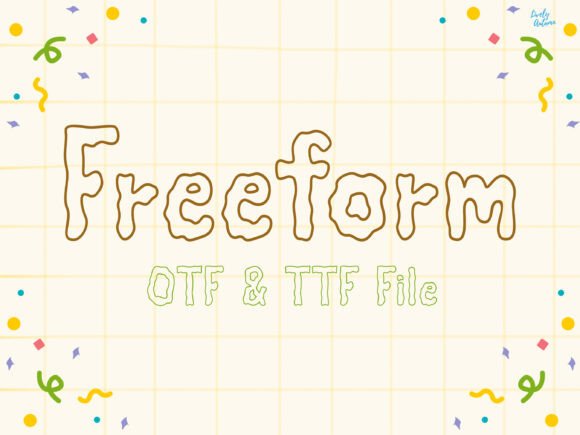
Introducing Freeform Font: Unleash Your Creativity with a Playful Hand-Drawn Outline Font
Are you tired of using the same old fonts for your personal and professional projects? Do you want to add a touch of playfulness and whimsy to your designs? Look no further than the Freeform Font, a delightful hand-drawn outline font that is perfect for a wide range of applications. Inspired by loose, carefree doodles, Freeform is a versatile and fun font that can elevate your creative projects to the next level.
What is Freeform Font?
Freeform Font is a unique and charming font that is characterized by its hand-drawn, outline style. With its irregular shapes and carefree lines, Freeform exudes a sense of playfulness and spontaneity, making it perfect for designers who want to add a personal touch to their work. Whether you’re creating invitations, posters, social media graphics, journals, or greeting cards, Freeform Font is an excellent choice.
Key Features of Freeform Font
- Hand-drawn outline style: Freeform Font boasts a distinctive hand-drawn outline style that gives it a personal and playful feel.
- Playful and whimsical: The font’s irregular shapes and carefree lines evoke a sense of playfulness and whimsy, making it perfect for creative projects.
- Versatile: Freeform Font can be used for a wide range of applications, from invitations and posters to social media graphics, journals, and greeting cards.
- Easy to read: Despite its playful style, Freeform Font is easy to read, making it suitable for both headings and body text.
Uses of Freeform Font
Freeform Font is a versatile font that can be used for a wide range of projects. Here are some ideas to get you started:
- Invitations: Use Freeform Font to create playful and eye-catching invitations for parties, weddings, and other special events.
- Posters: Create bold and colorful posters for movies, concerts, or art exhibitions using Freeform Font.
- Social media graphics: Add a touch of personality to your social media graphics, such as Facebook posts, Instagram stories, and Twitter headers, with Freeform Font.
- Journals and planners: Use Freeform Font to create fun and colorful journal and planner pages that will inspire creativity and productivity.
- Greeting cards: Create heartfelt and playful greeting cards for birthdays, holidays, and other special occasions using Freeform Font.
Benefits of Using Freeform Font
Using Freeform Font can bring a range of benefits to your design projects. Here are some of the advantages of using this playful hand-drawn outline font:
- Adds personality: Freeform Font adds a touch of personality and whimsy to your designs, setting them apart from more traditional fonts.
- Creates a playful tone: The font’s playful style helps to create a lighthearted and carefree tone that is perfect for creative projects.
- Versatile: The font’s versatility means that it can be used for a wide range of applications, from digital projects to print materials.
Tips for Using Freeform Font
Here are some tips for using Freeform Font effectively in your design projects:
- Use it for headings: Freeform Font is perfect for headings and titles, where its playful style can really shine.
- Pair it with other fonts: Experiment with pairing Freeform Font with other fonts to create interesting and dynamic typography.
- Experiment with colors: Don’t be afraid to try out different colors and textures with Freeform Font to add depth and interest to your designs.
- Keep it simple: While Freeform Font is playful, it’s still a simple font that works best when used in a straightforward way.
In conclusion, Freeform Font is a delightful hand-drawn outline font that is perfect for designers who want to add a touch of playfulness and whimsy to their projects. With its irregular shapes and carefree lines, Freeform Font is a versatile and fun font that can be used for a wide range of applications. Whether you’re creating invitations, posters, social media graphics, journals, or greeting cards, Freeform Font is an excellent choice. So why not give it a try and see how it can elevate your creative projects to the next level?